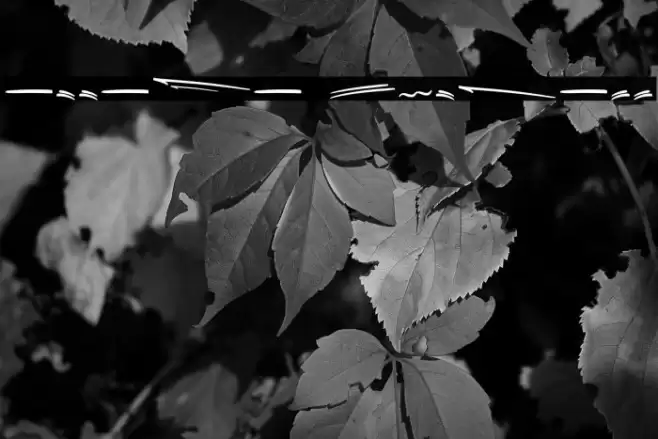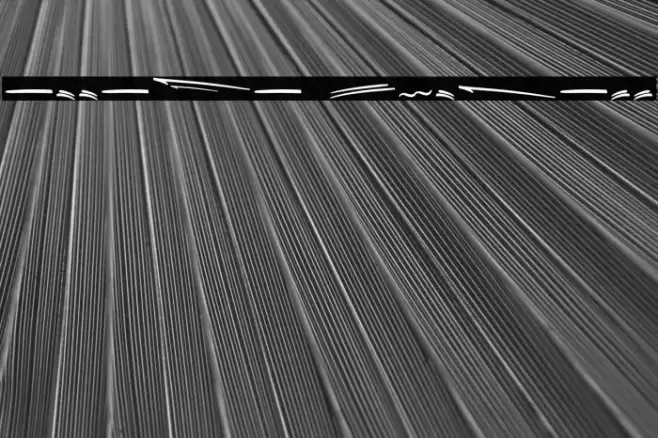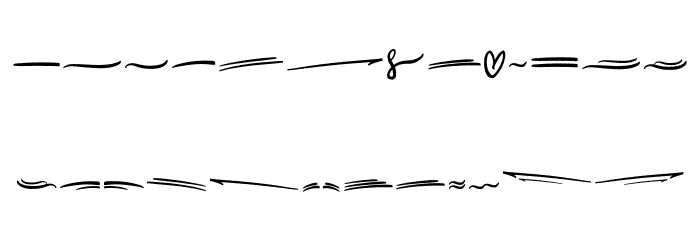
Attaya Extrass Font
Attaya Extrass Description
This design features a series of decorative lines and symbols, including arrows, hearts, and squiggles. The elements are hand-drawn, giving them a whimsical and playful feel. The lines vary in thickness, adding a dynamic quality to the design. The symbols are integrated seamlessly into the lines, creating a cohesive look. The overall style is casual and artistic, suitable for adding a personal touch to creative projects. The design is not a traditional font but rather a collection of decorative elements.
A whimsical collection of hand-drawn decorative lines and symbols from Uncategorized fonts.
- Proposed Projects: Ideal for scrapbooking, greeting cards, invitations, and other creative projects that require a personal, artistic touch.
- Use Case: Decorative elements for creative projects.